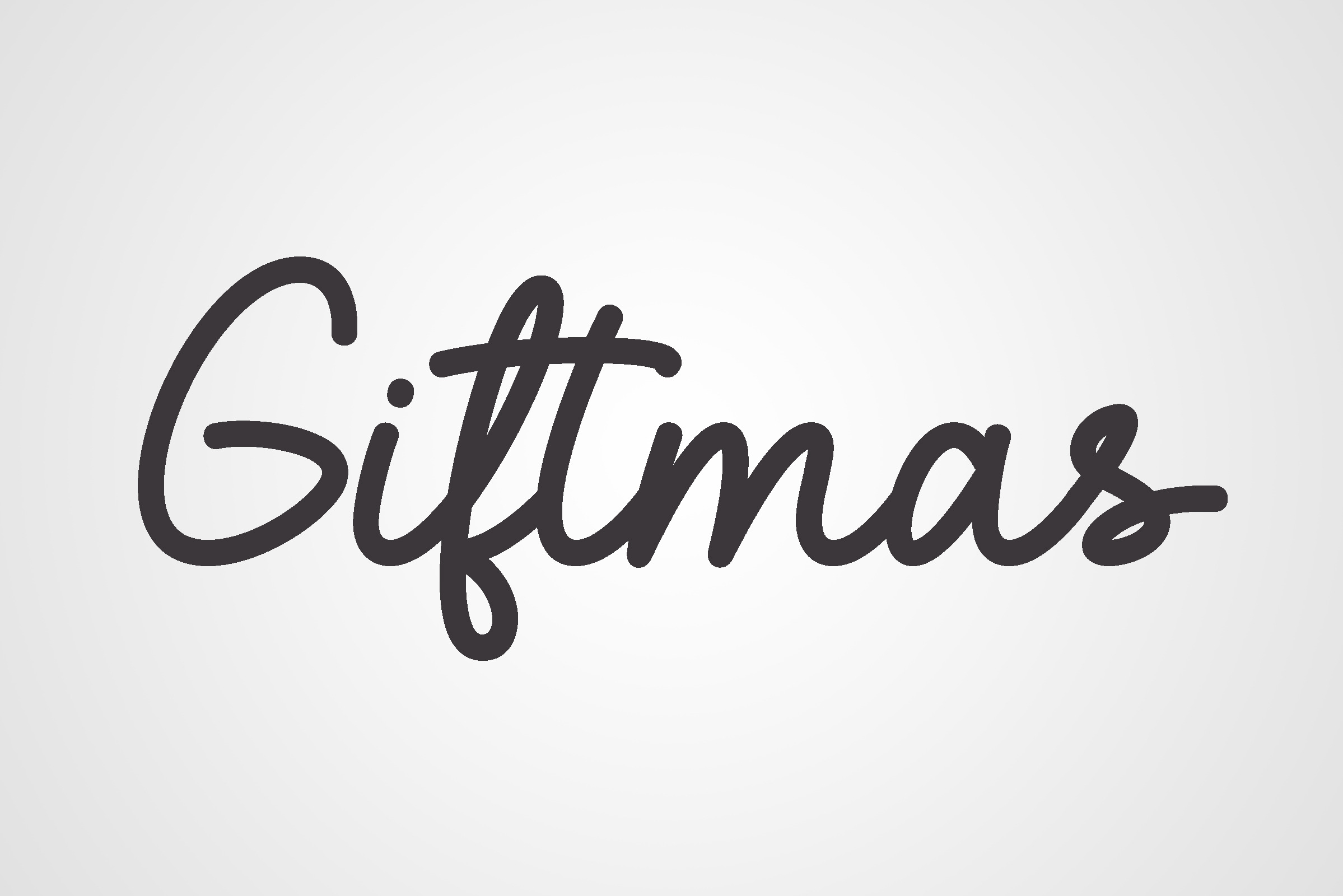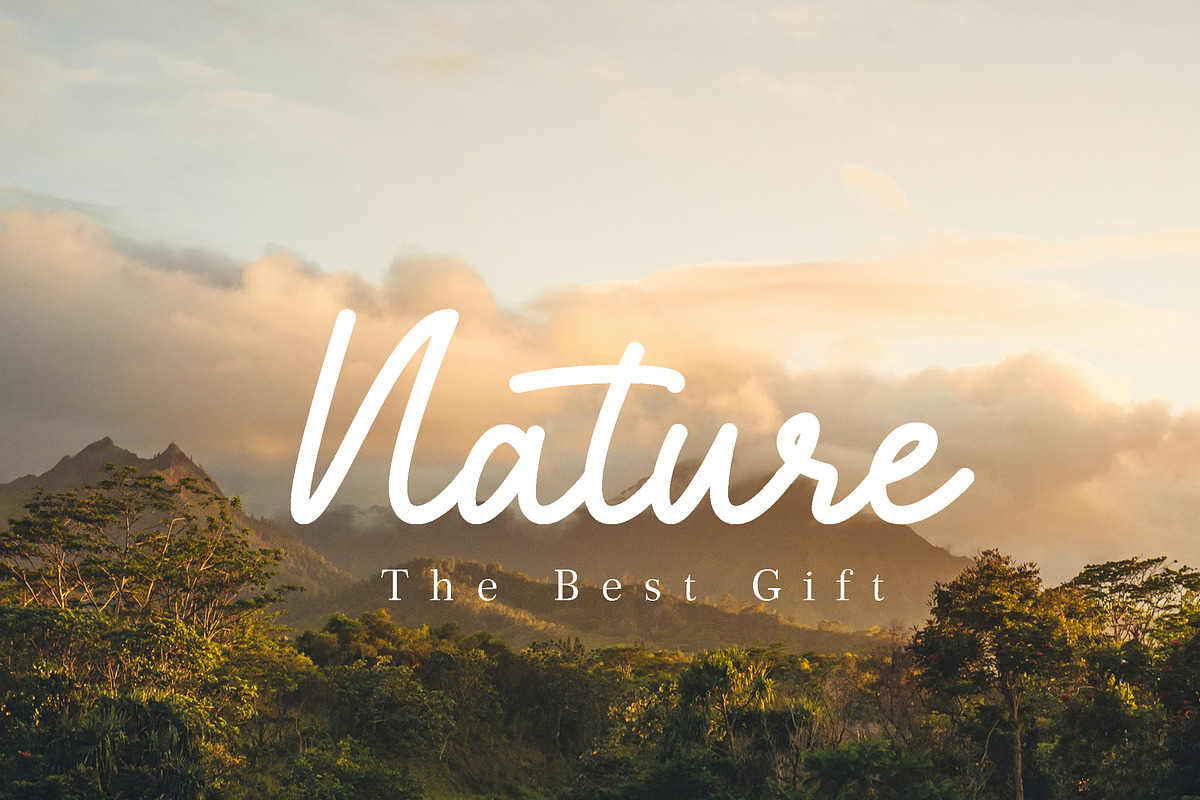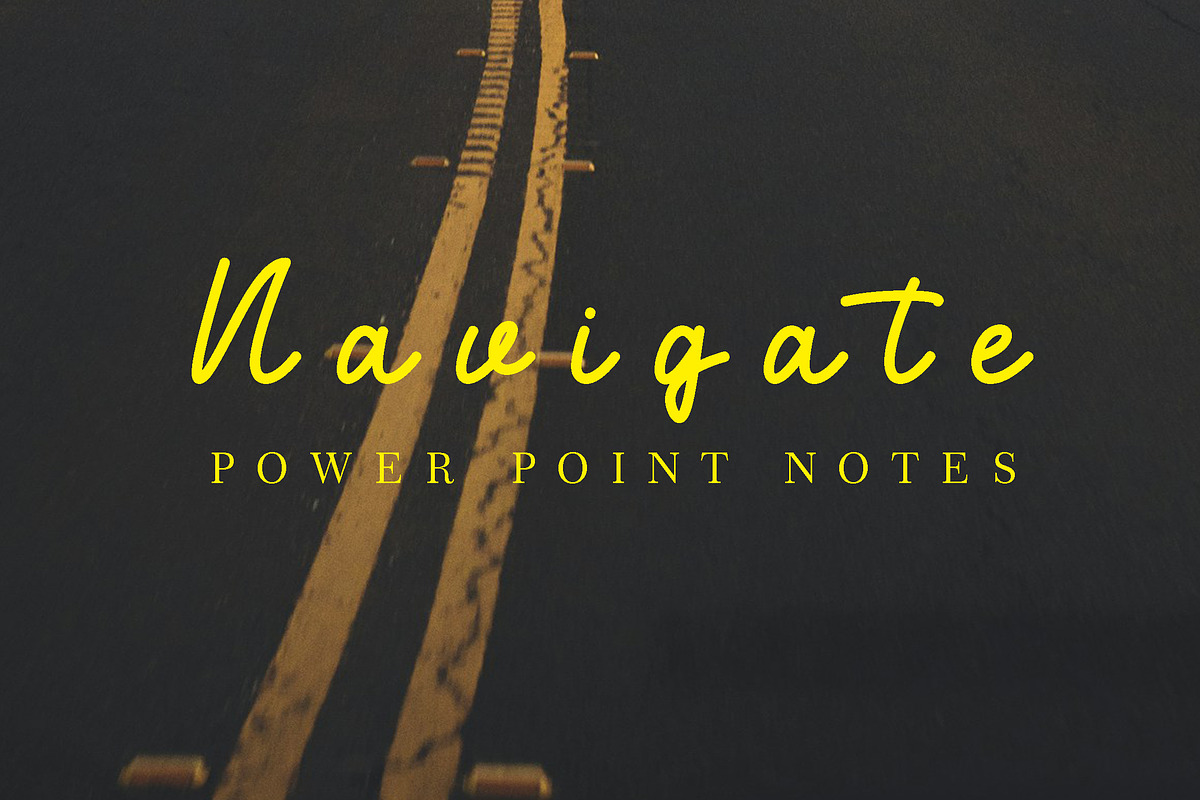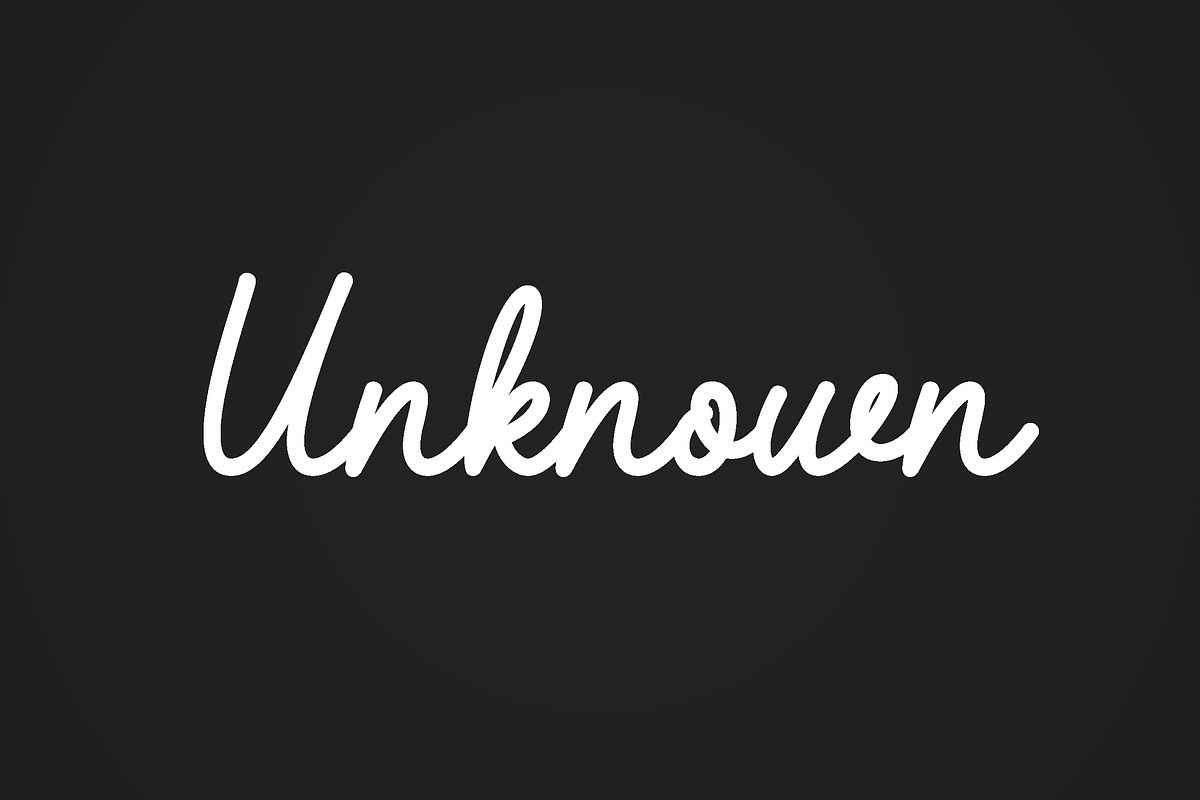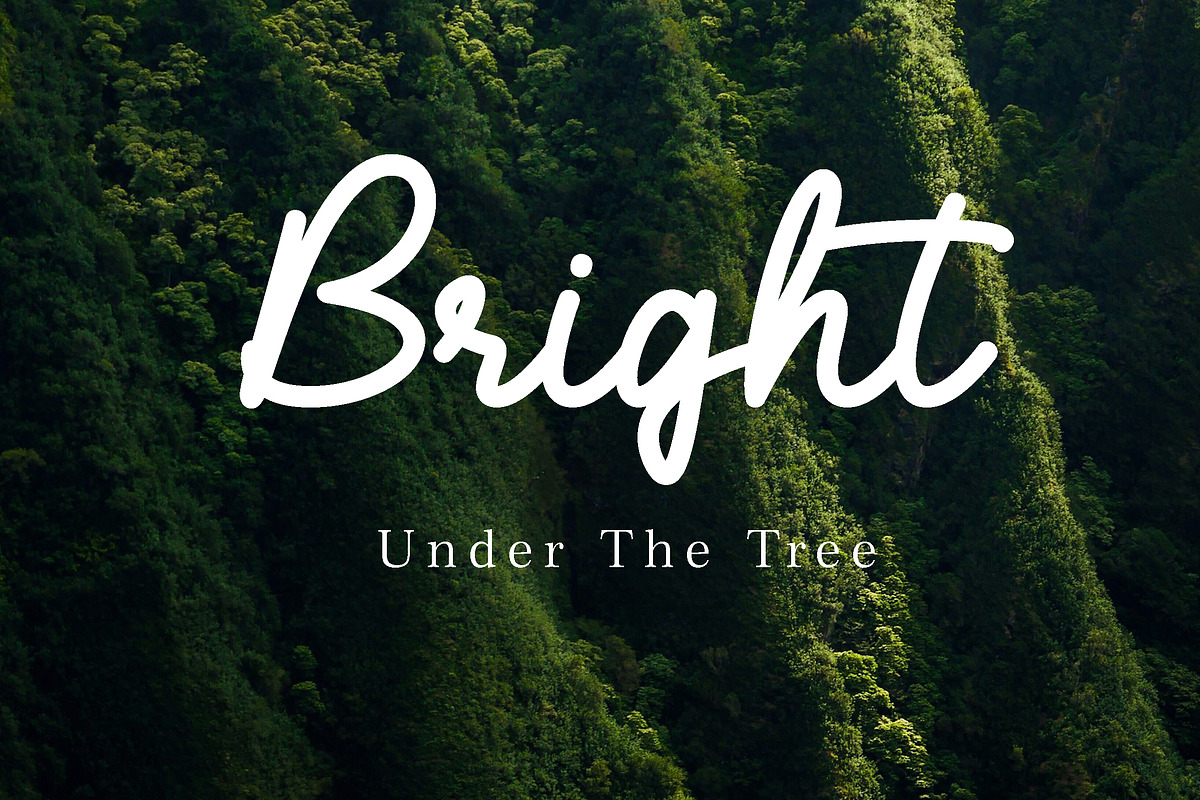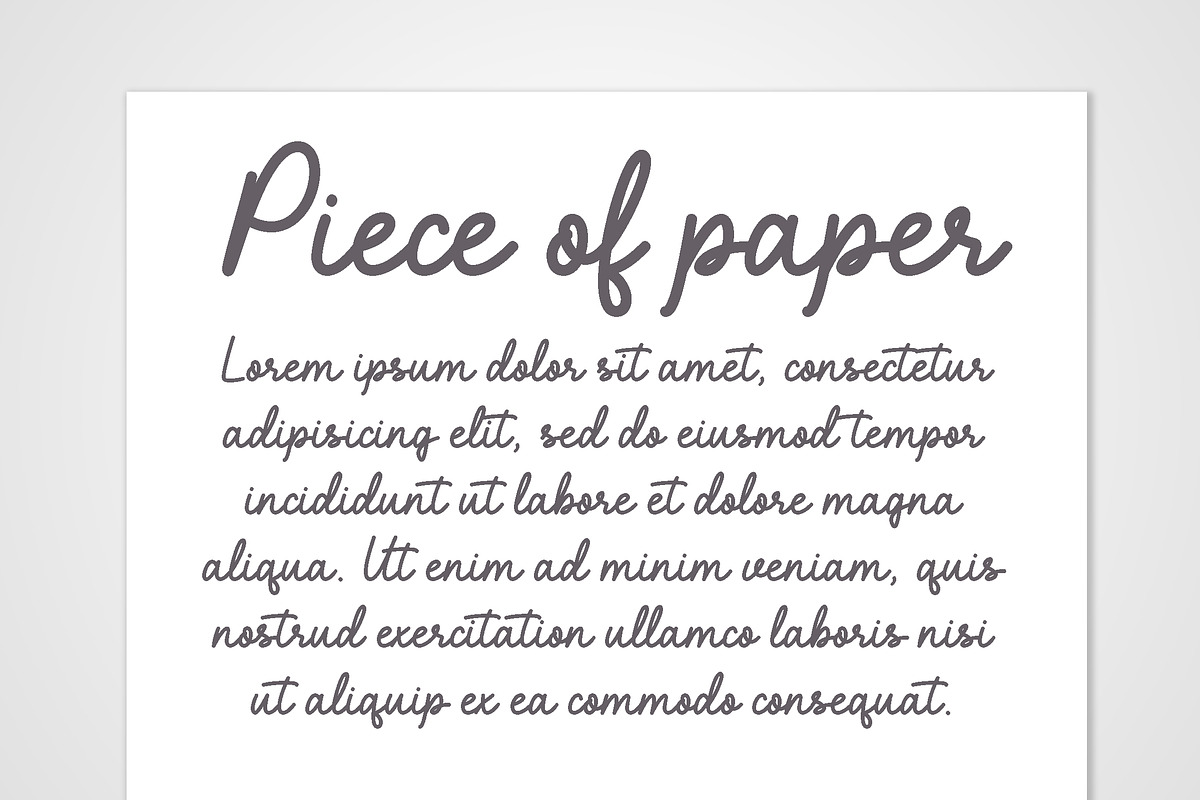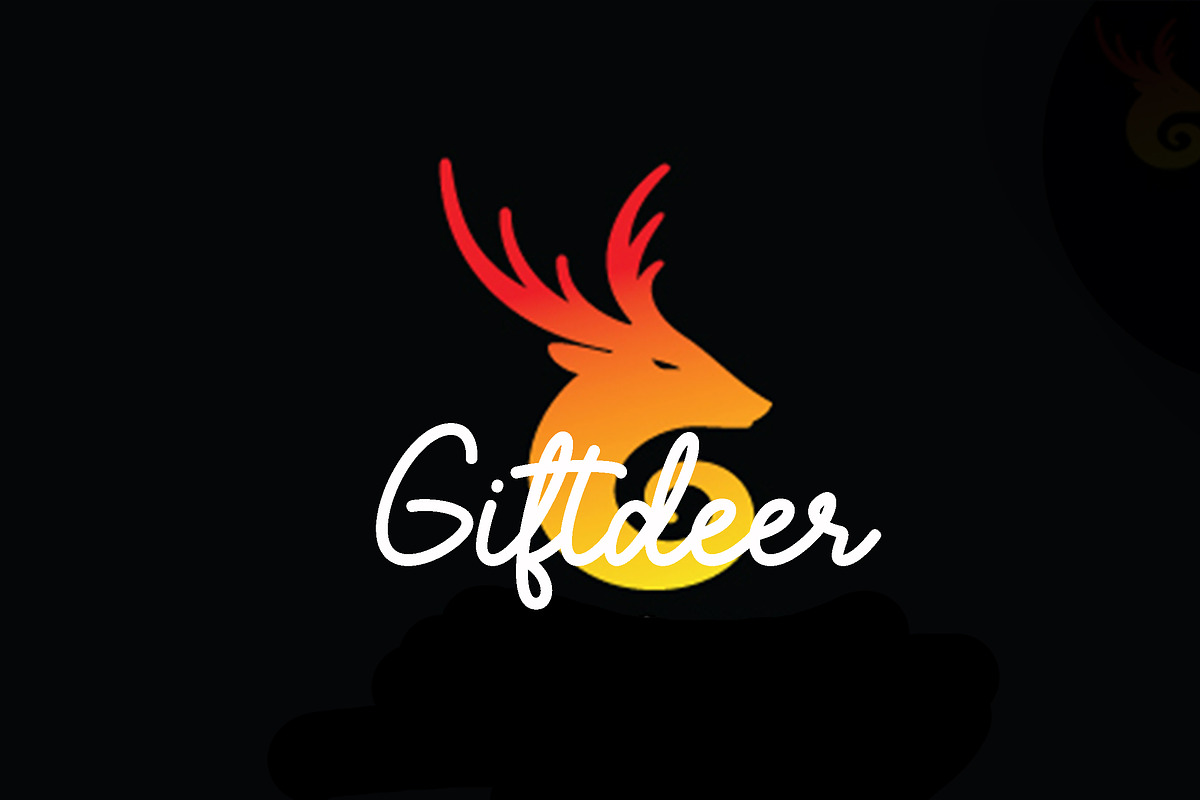
Giftmas - Monoline script font
This font invites you to leave your worries behind and enjoy the simple pleasure of creating. Every line you draw or write is an extension of self-expression. Its versatility extends far beyond aesthetics; it can seamlessly fit into a spectrum of designs, both digital and print. Whether you’re jotting down notes, crafting an online project, or designing an invitation card, it’s a monoline script friendly, pretty, elegant, modern, lettering, cool font, simple font, trendy font, so you can use it for headlines, cards, invites, logotypes, magazines and, of course, movie posters and t shirts. that champions freedom while inspiring creativity. This font is PUA encoded which means you can access all of the glyphs and alternates with ease! (please type the preview to see if I have what you need!)